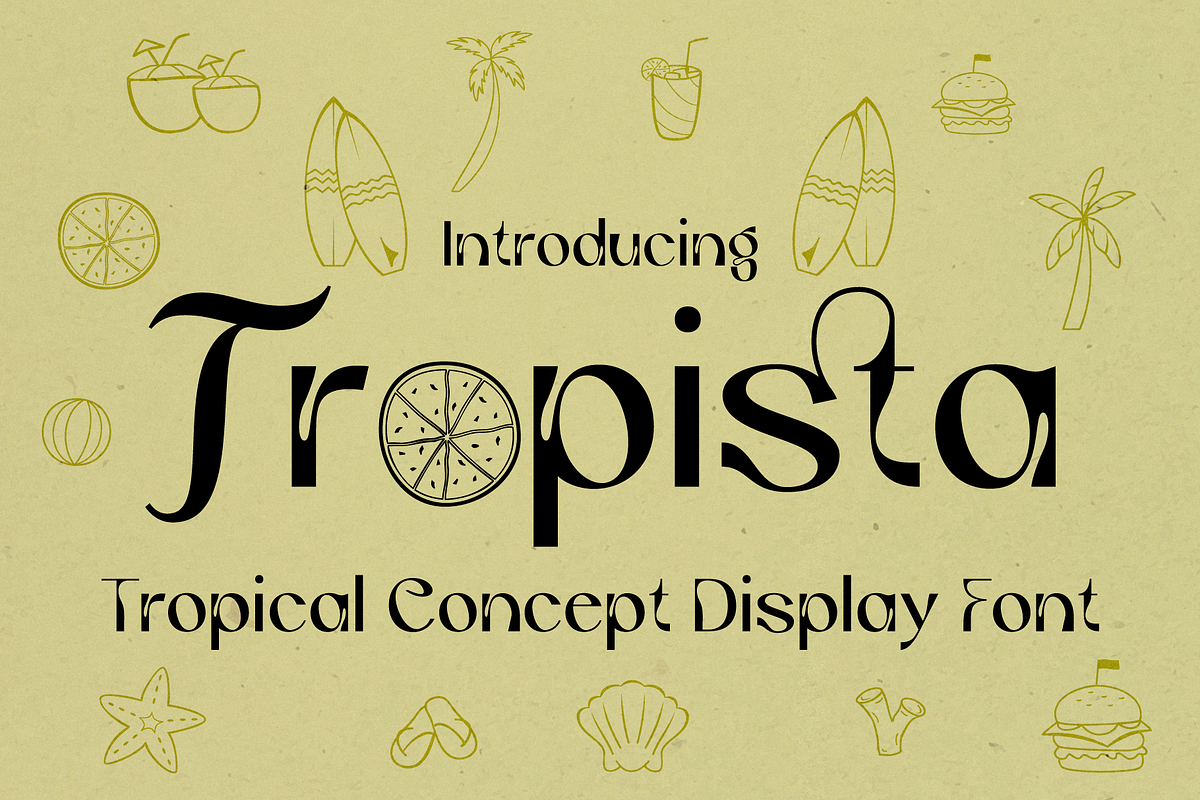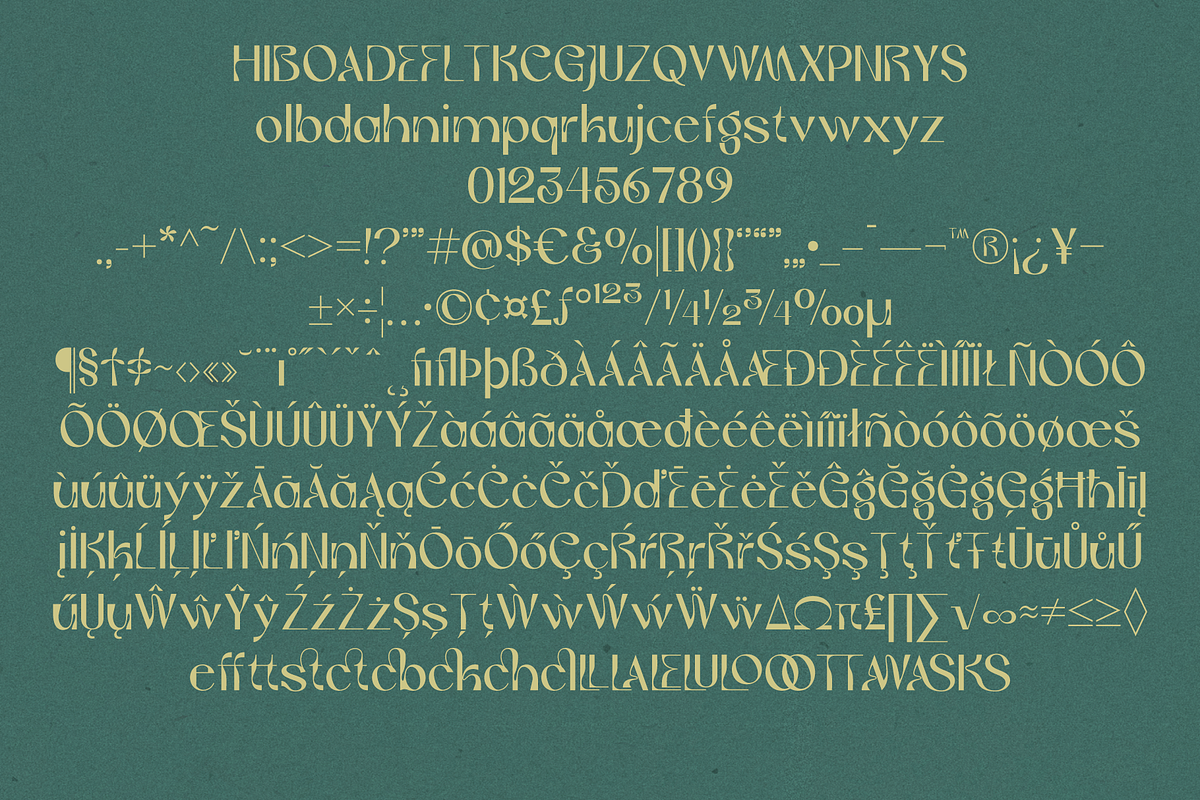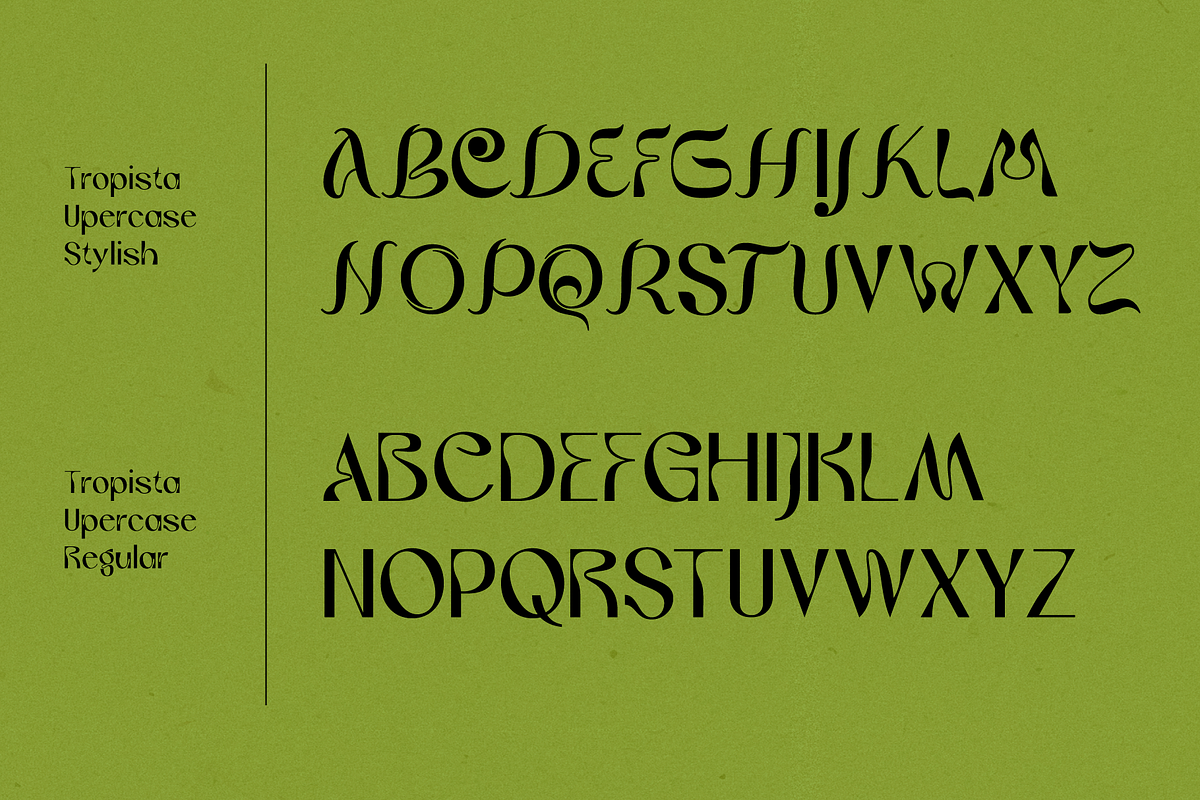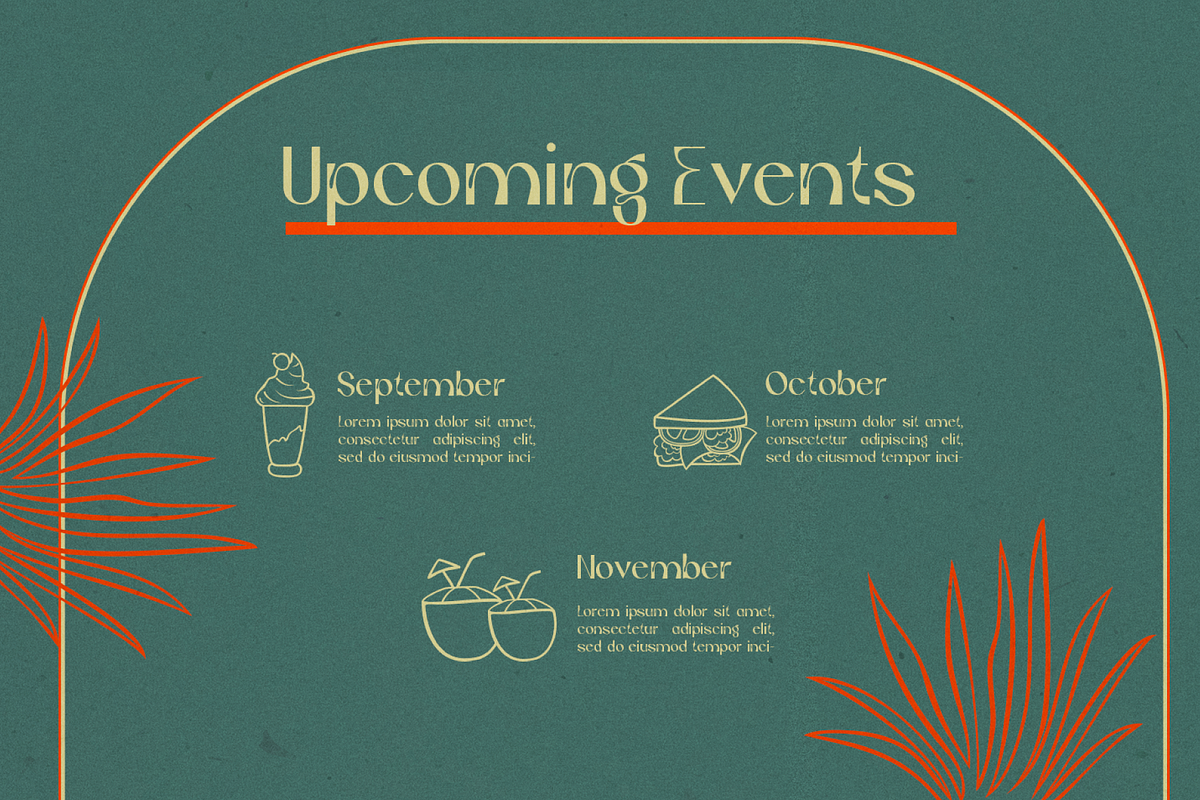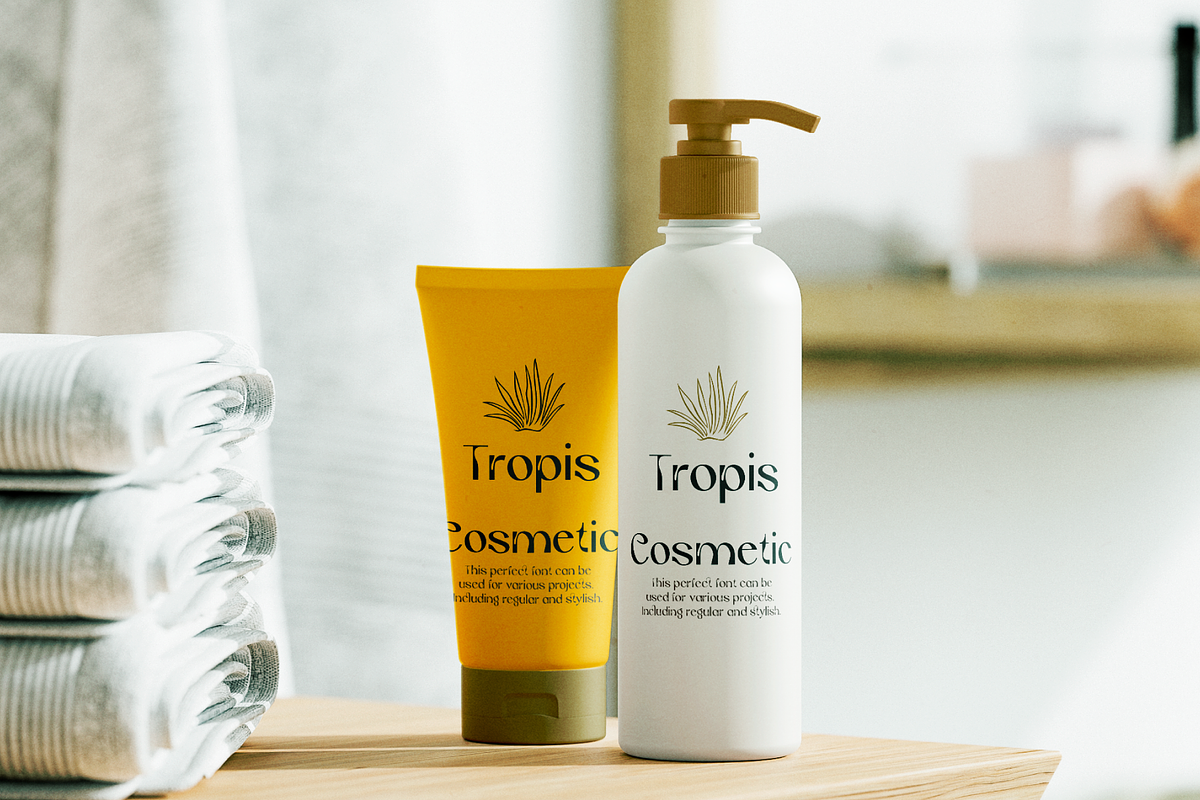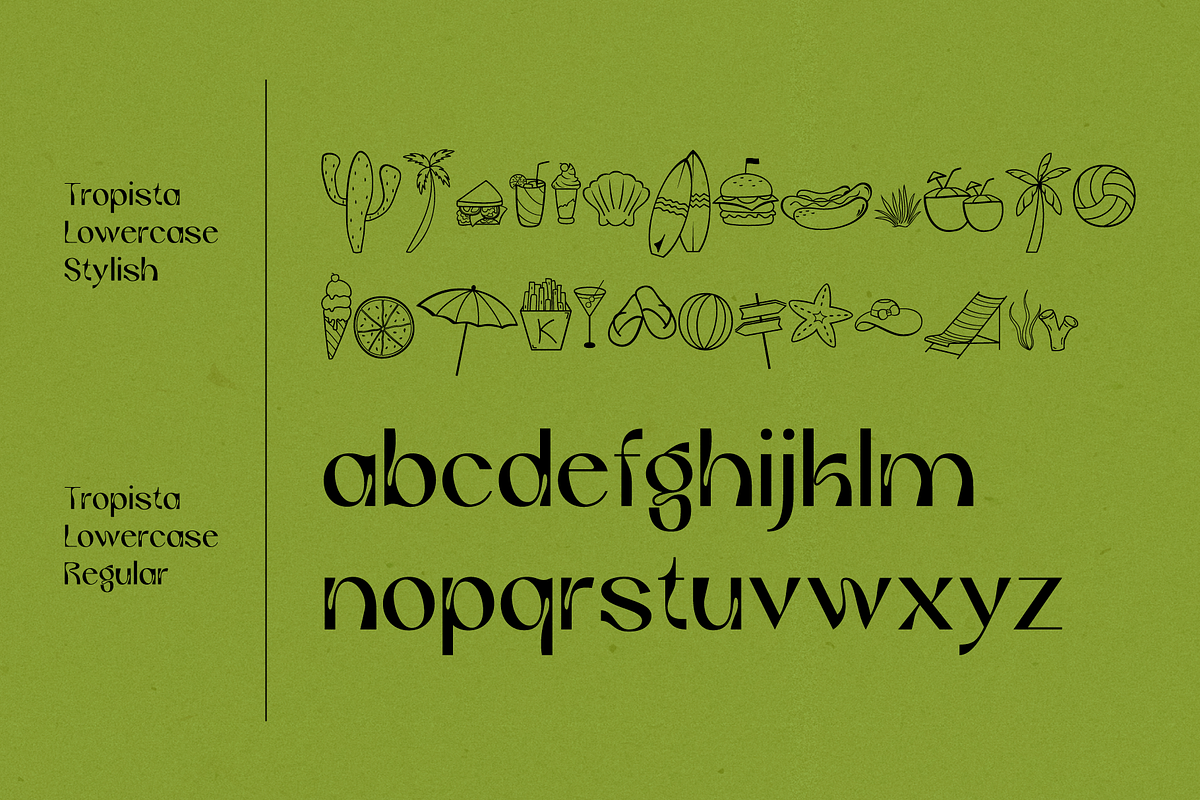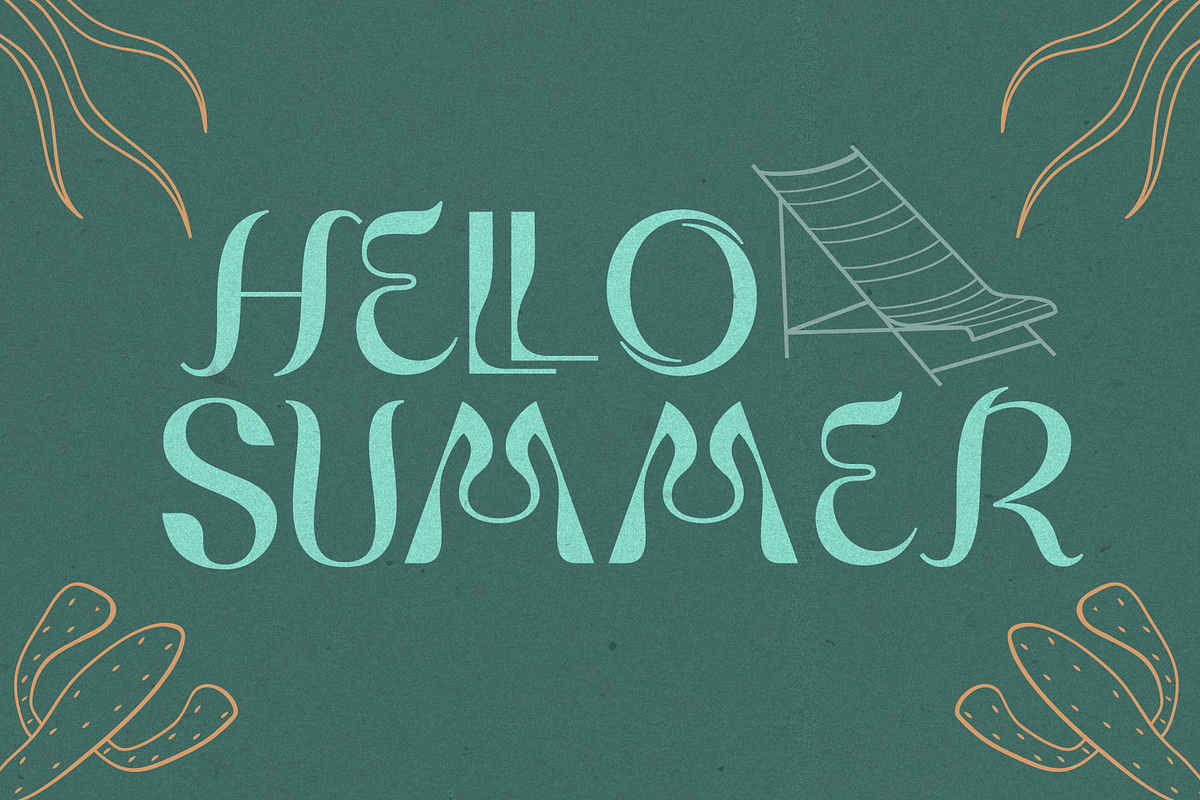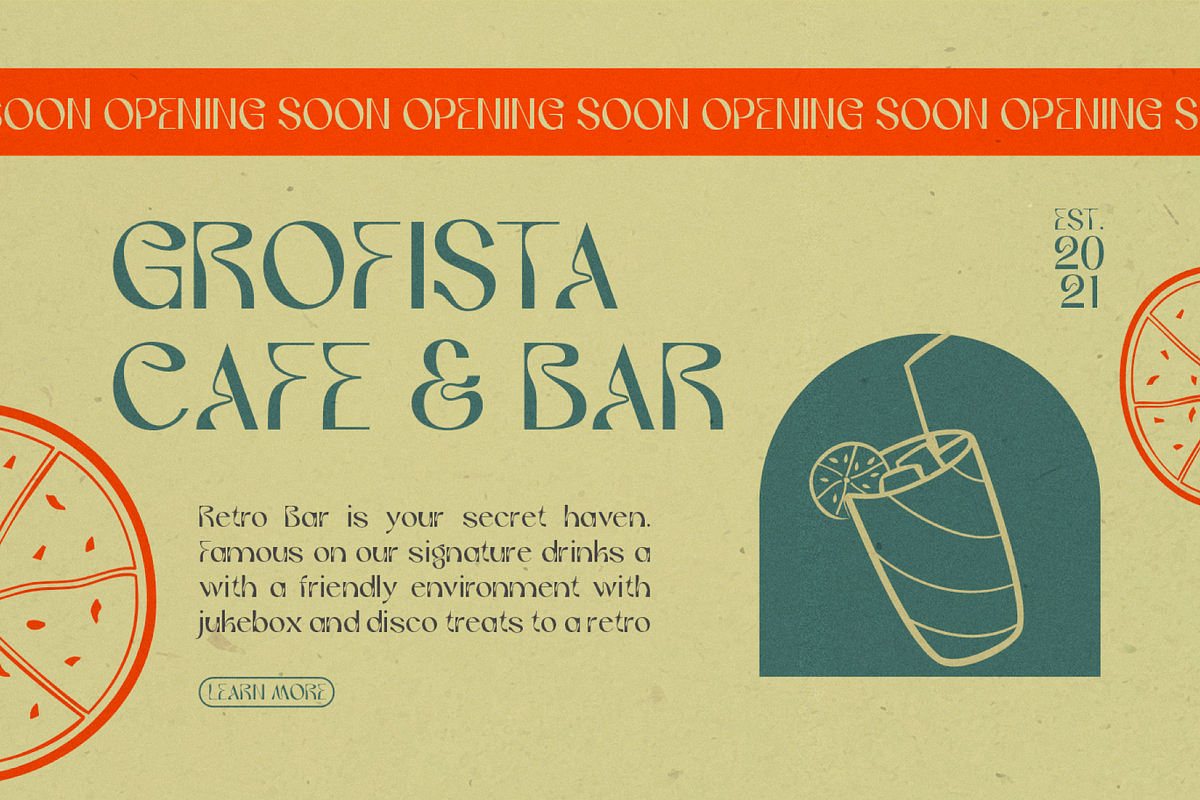
Tropista Tropical Concept
Tropista Tropical Concept Font is a display font derived from the liquid form forming a glyph representing fertility in tropical climates. Tropista followed by the regular and stylish font makes it more flexible for your tropical design needs.